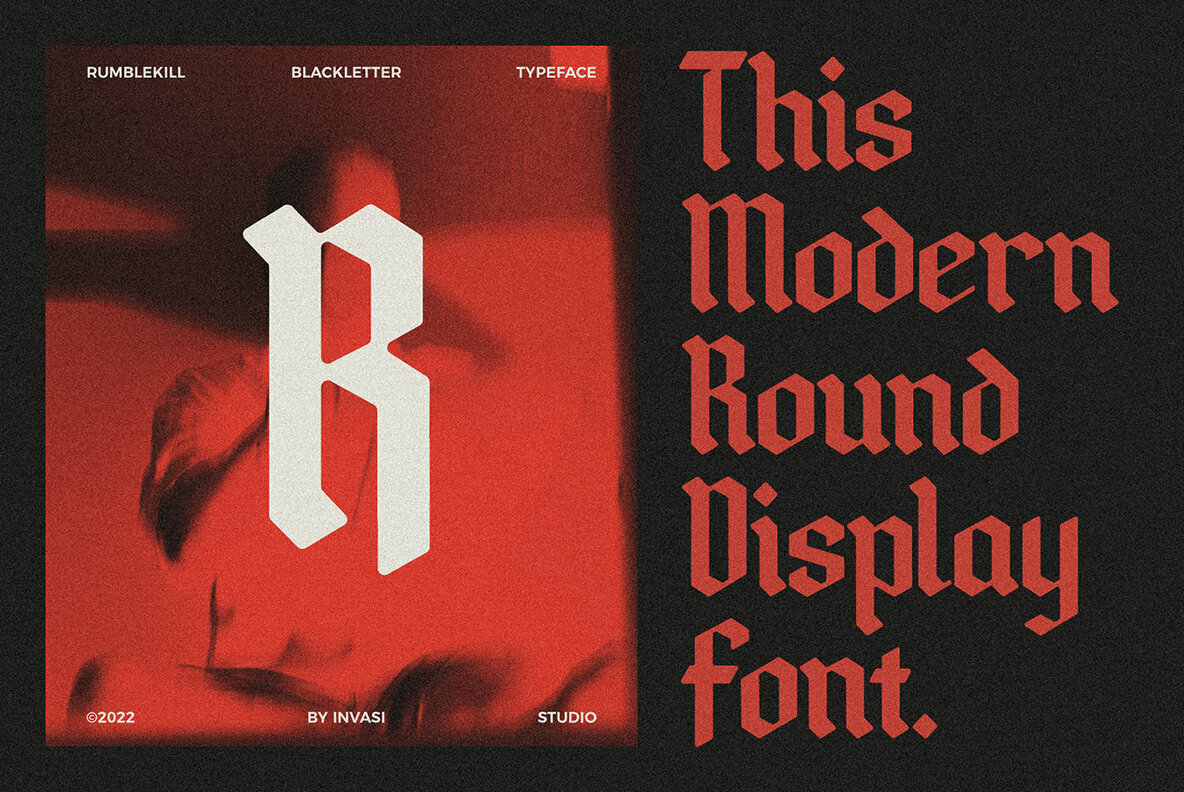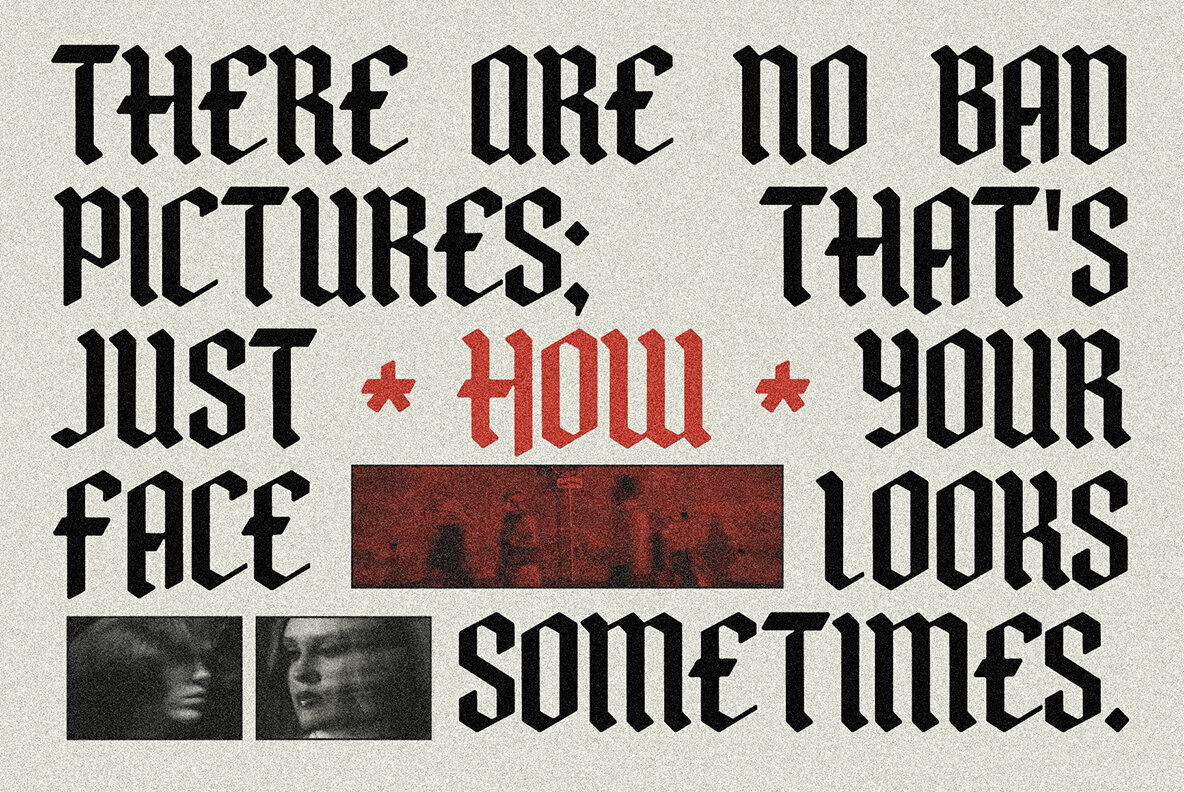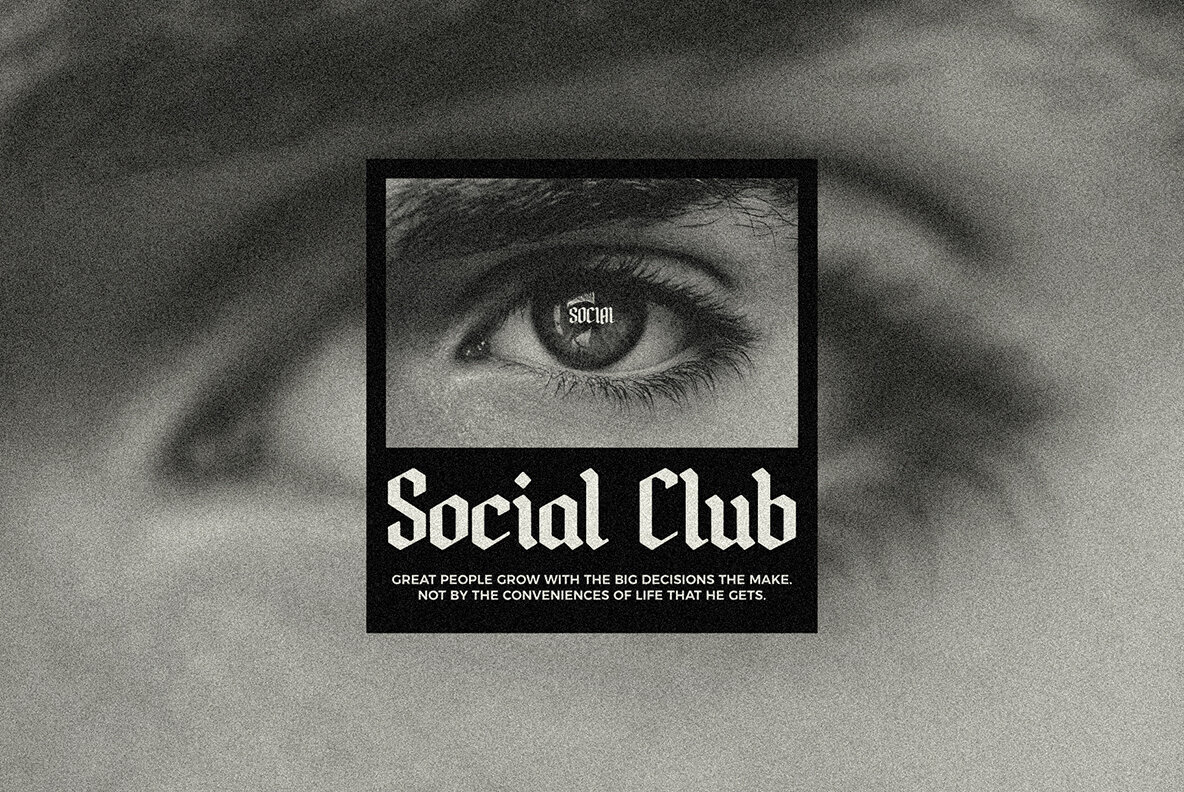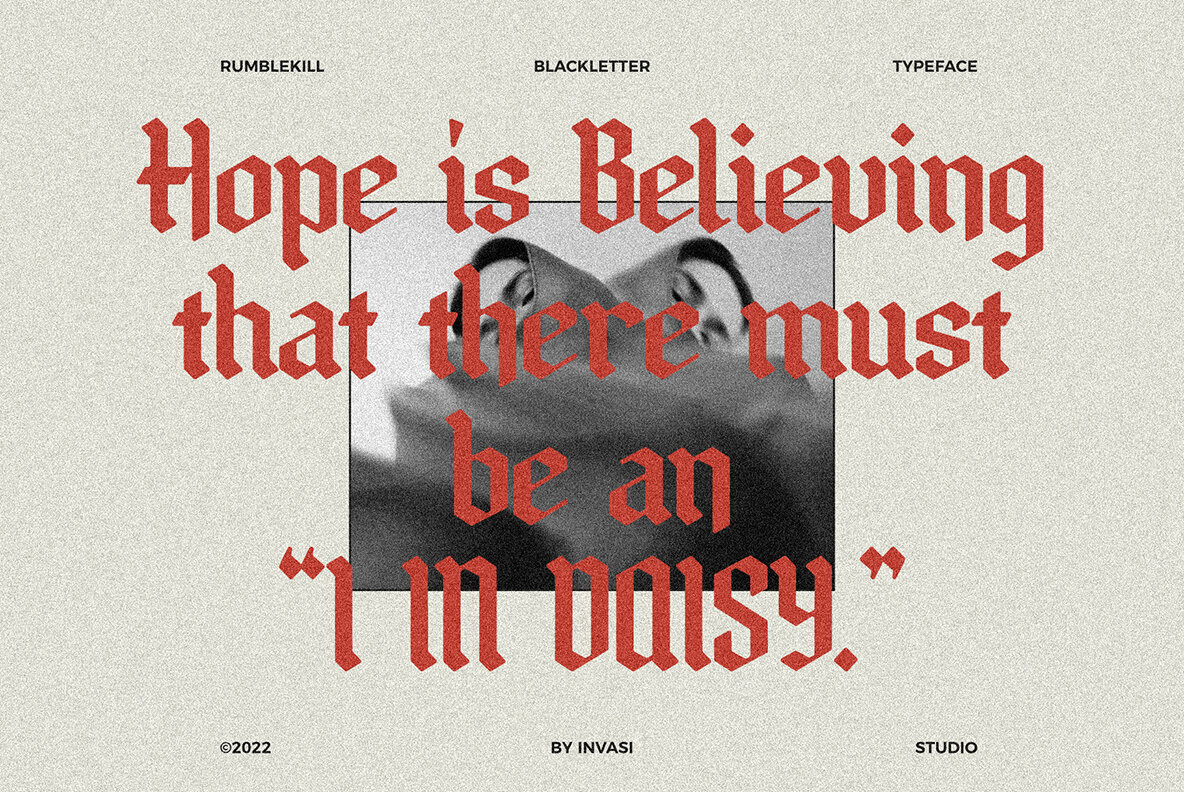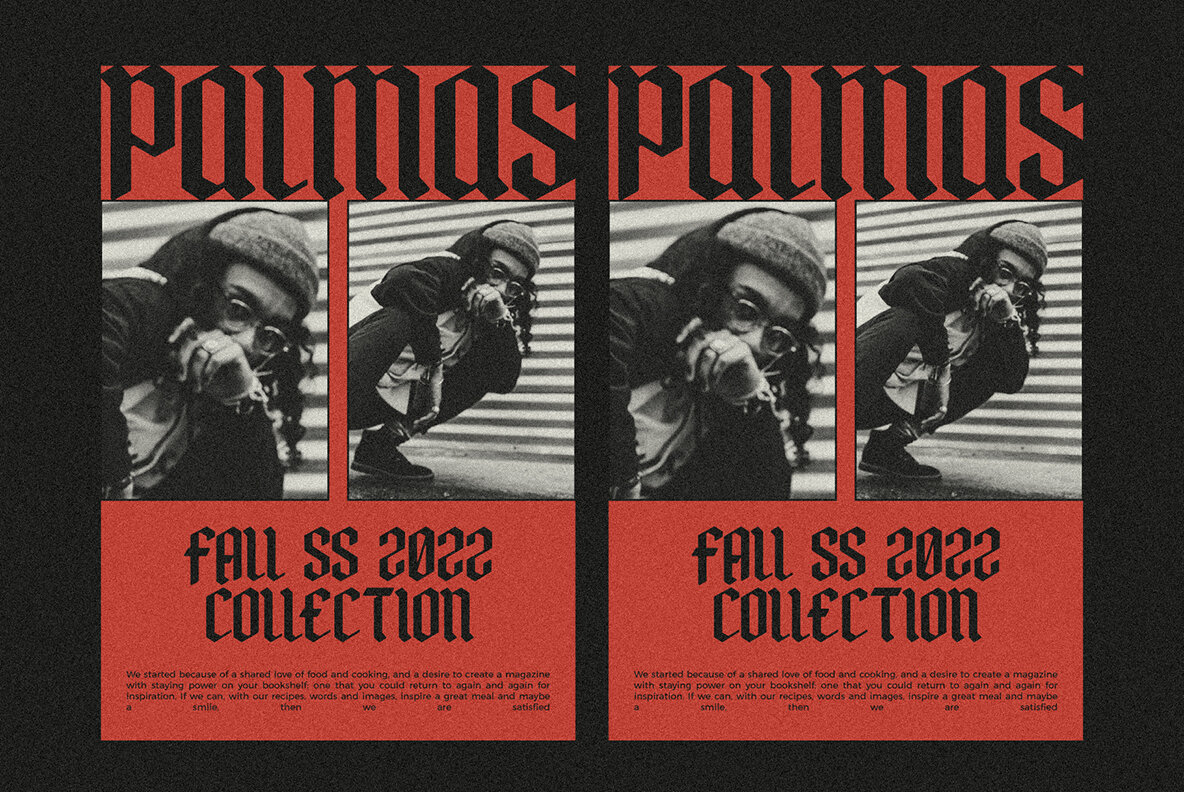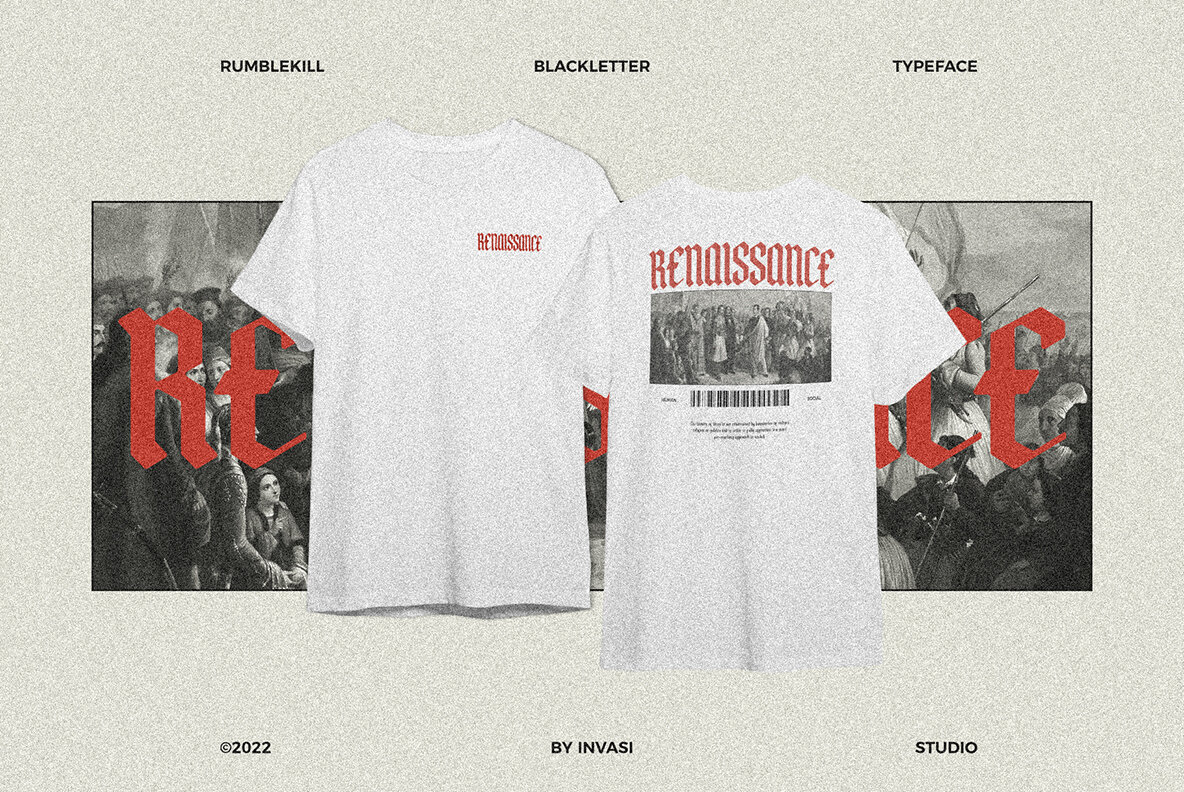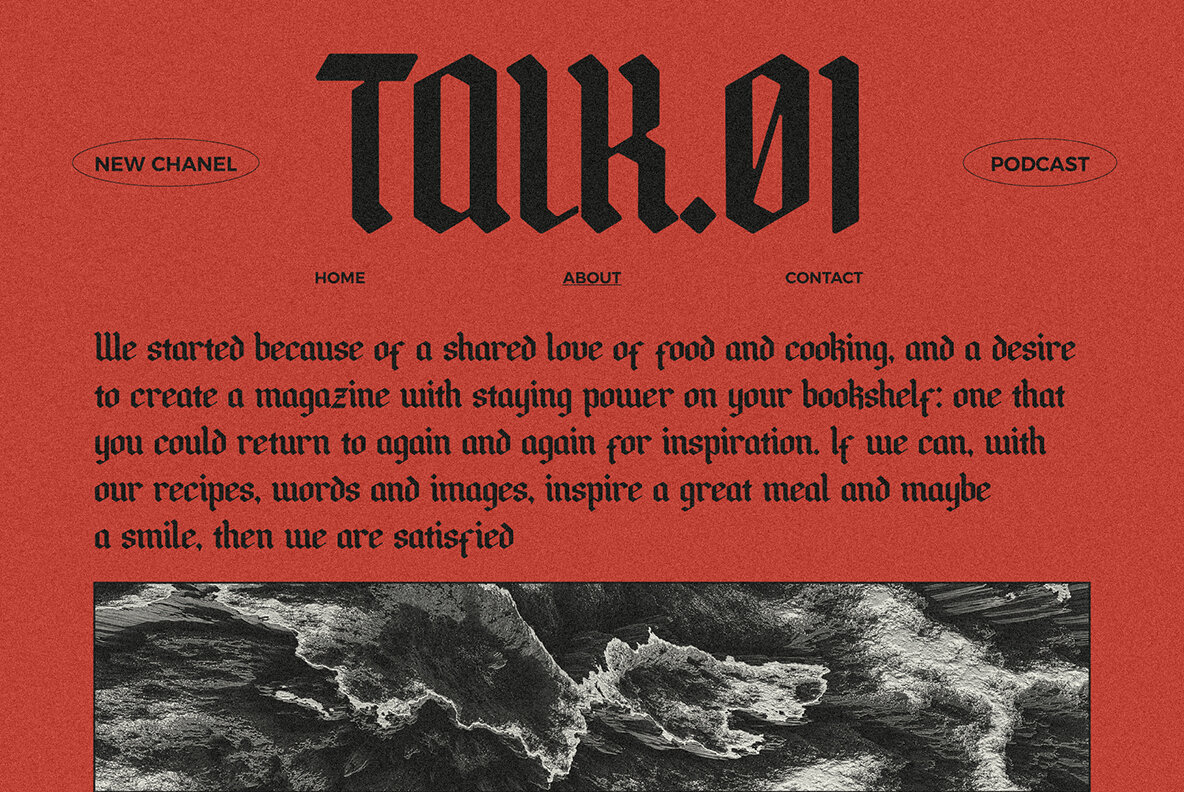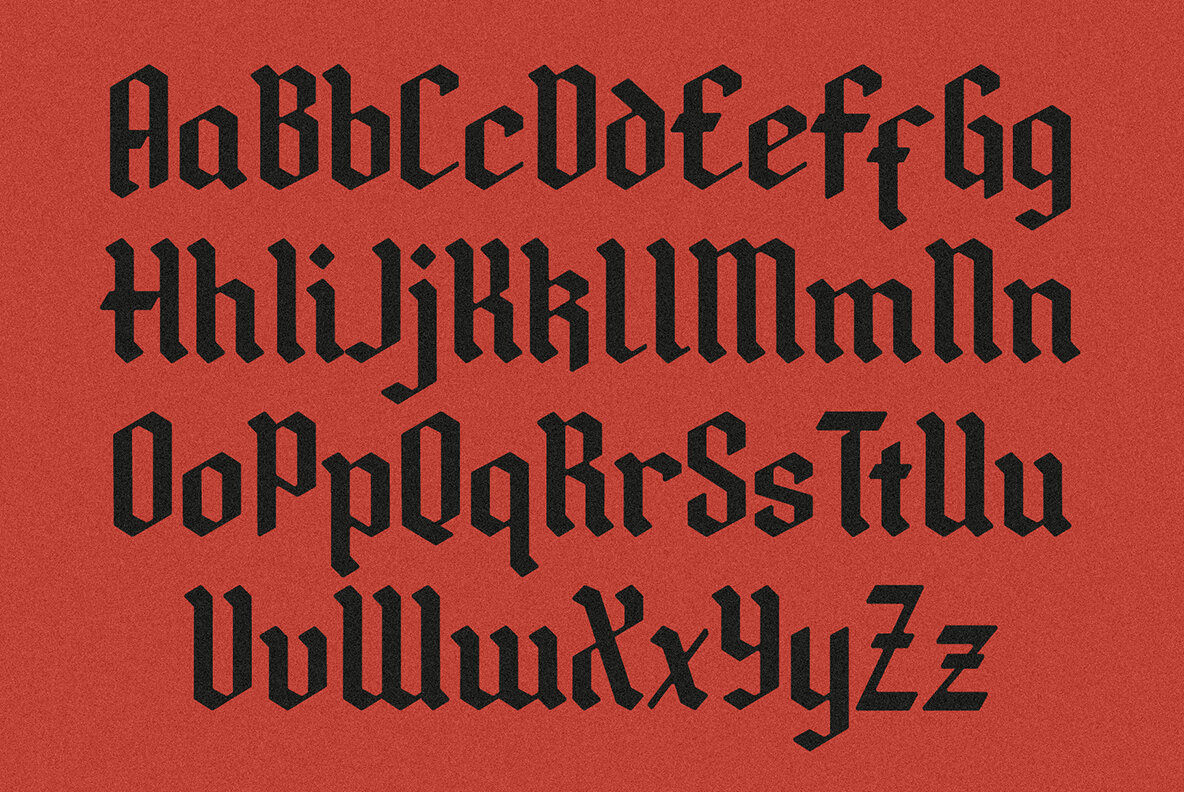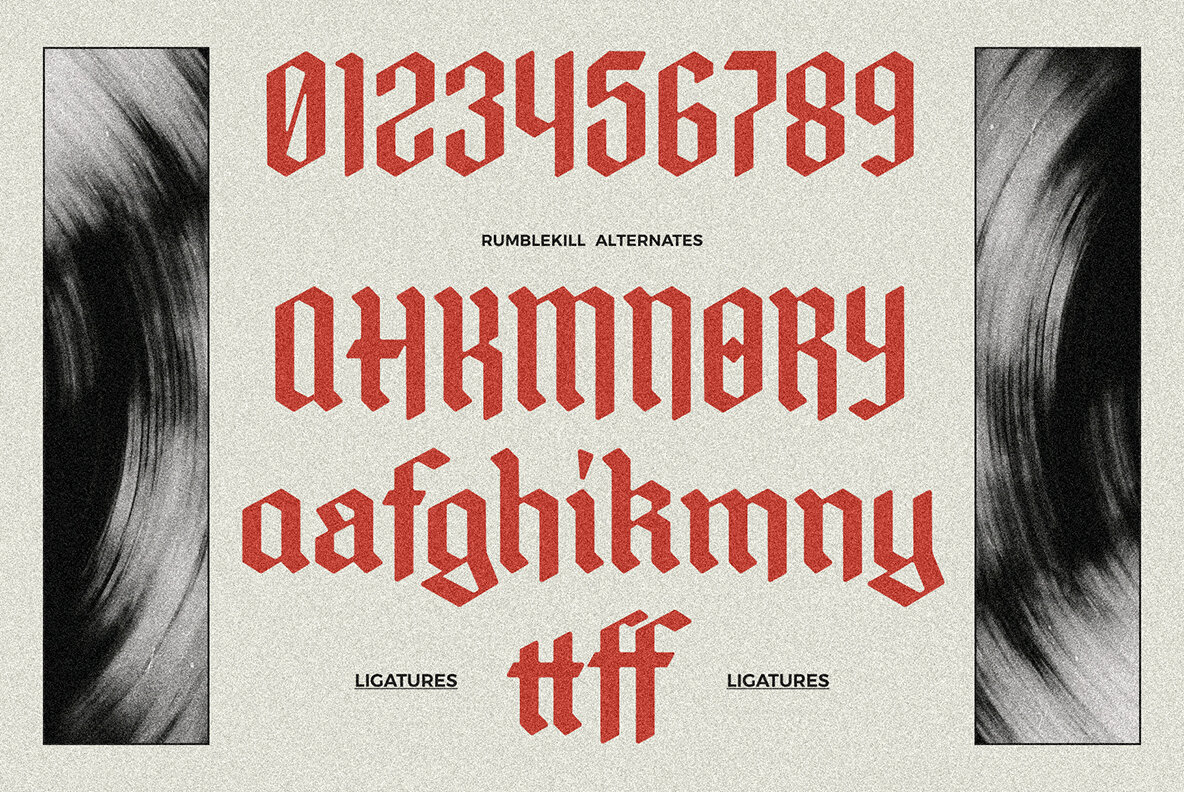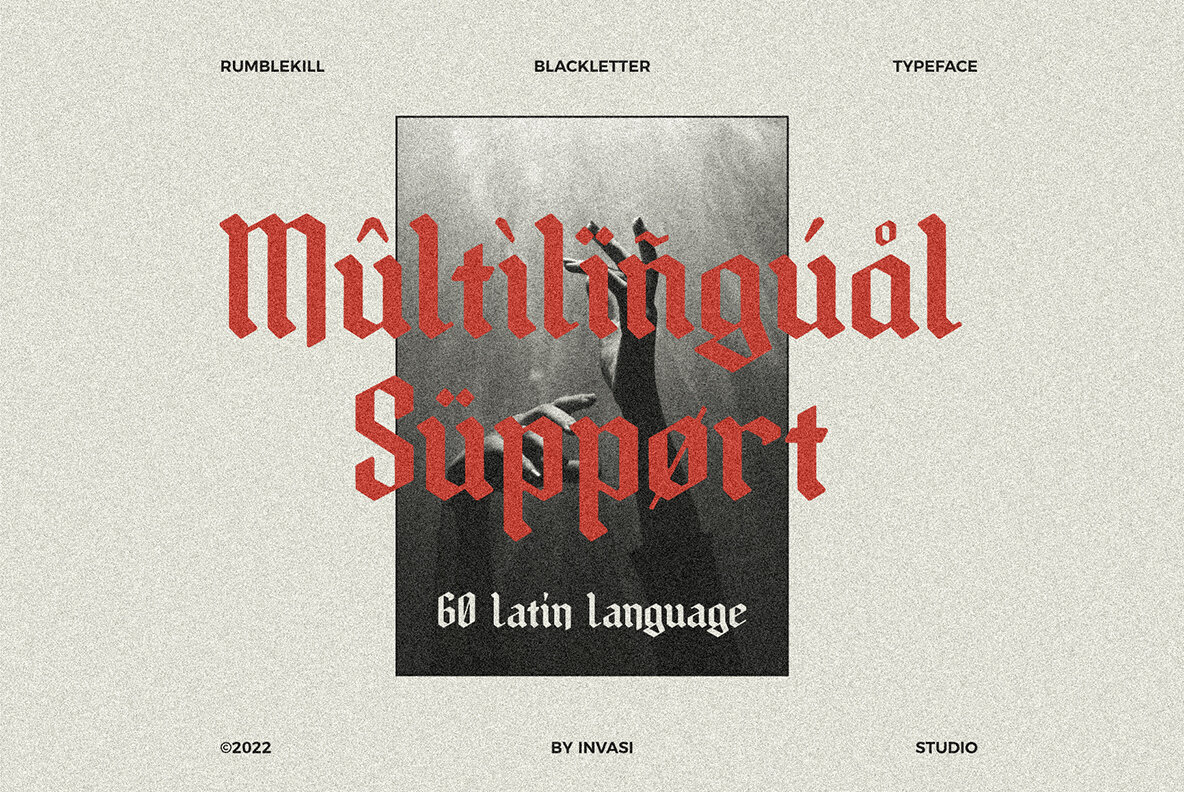
Rumblekill Font
Rumblekill is the perfect font to create something unique and modern. This bold typeface has elegant features that will inspire you with its versatility, including alternative characters like ligatures as well as multi-language support for various languages.